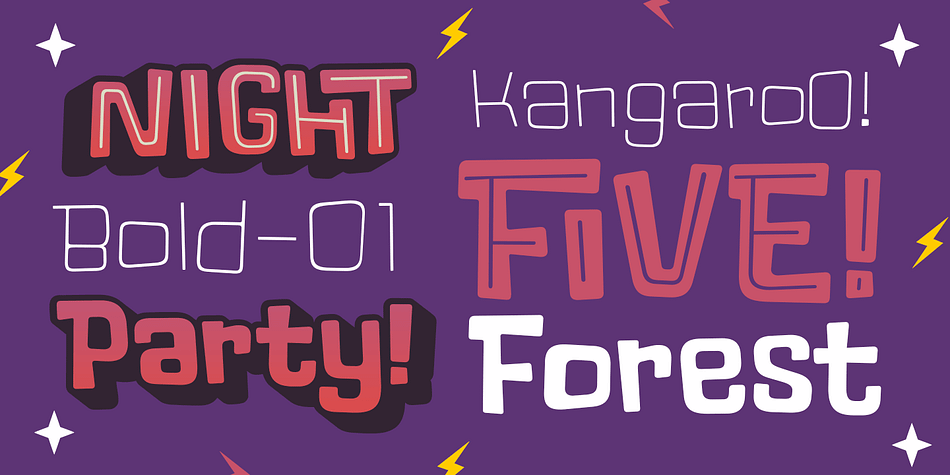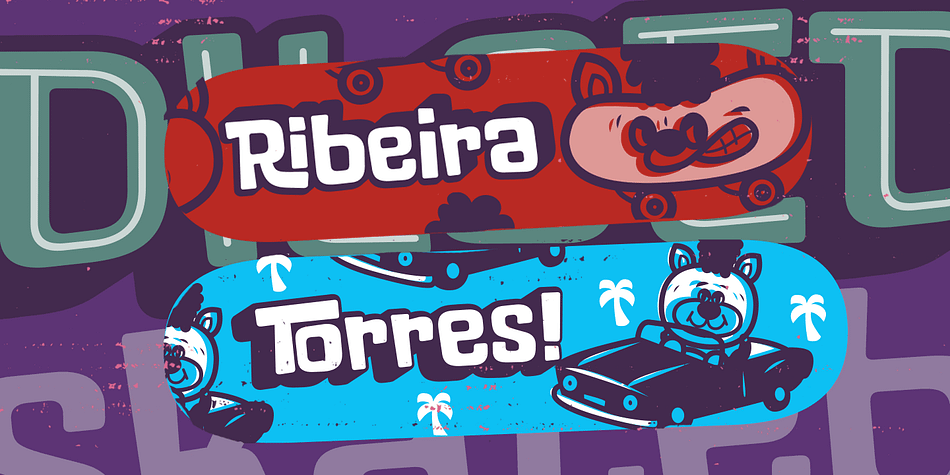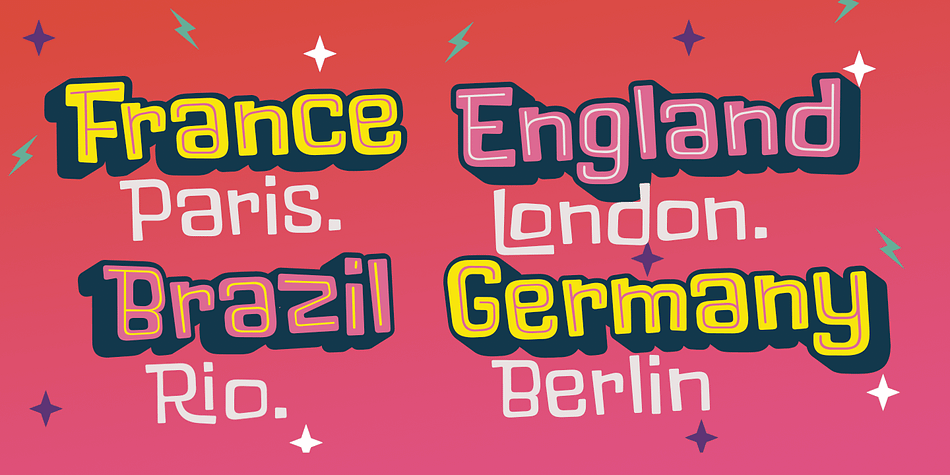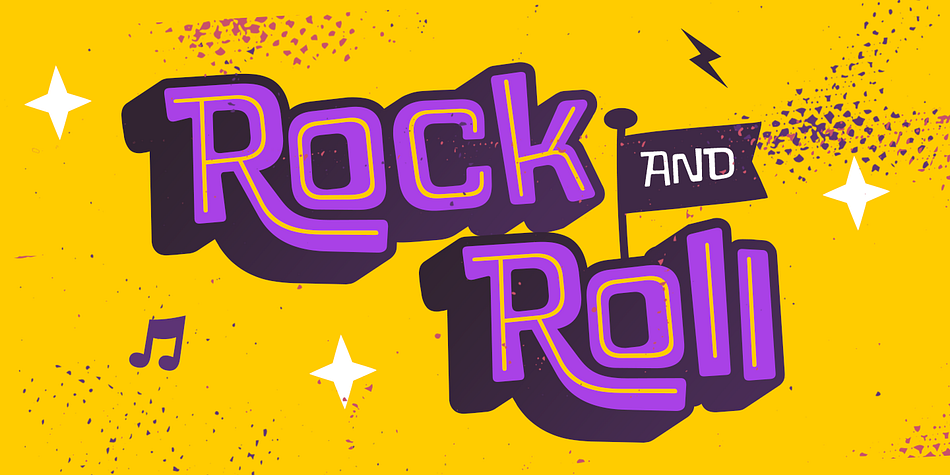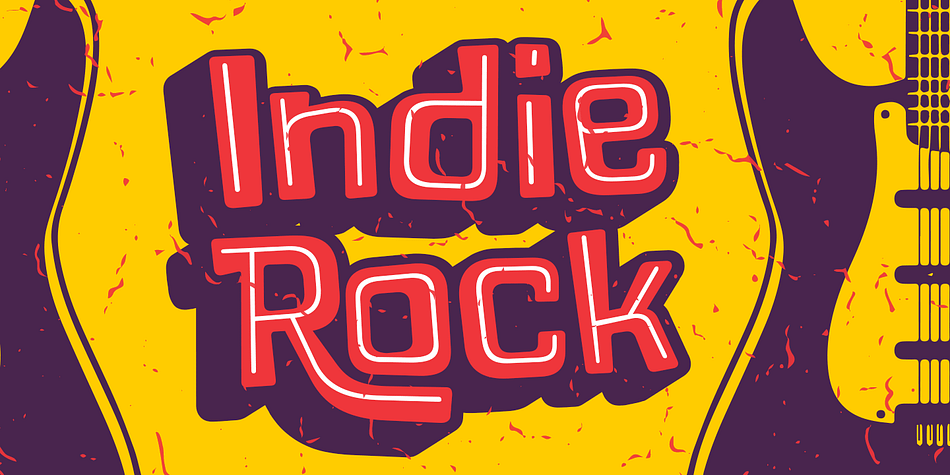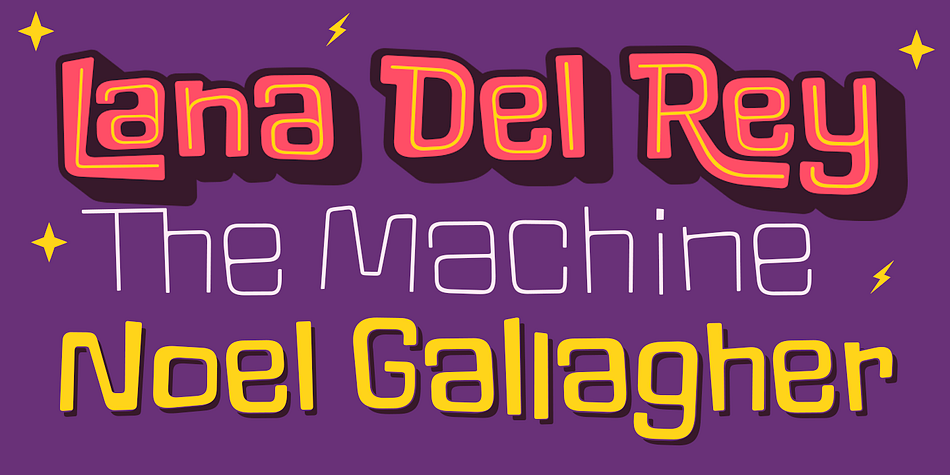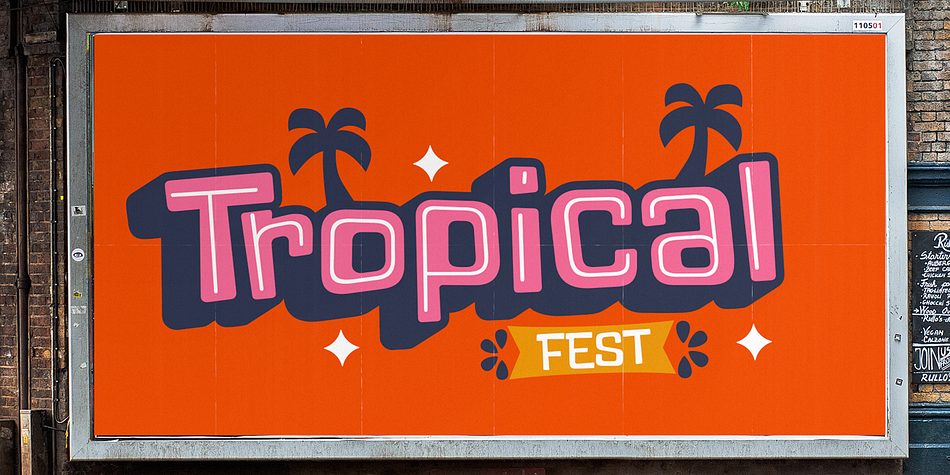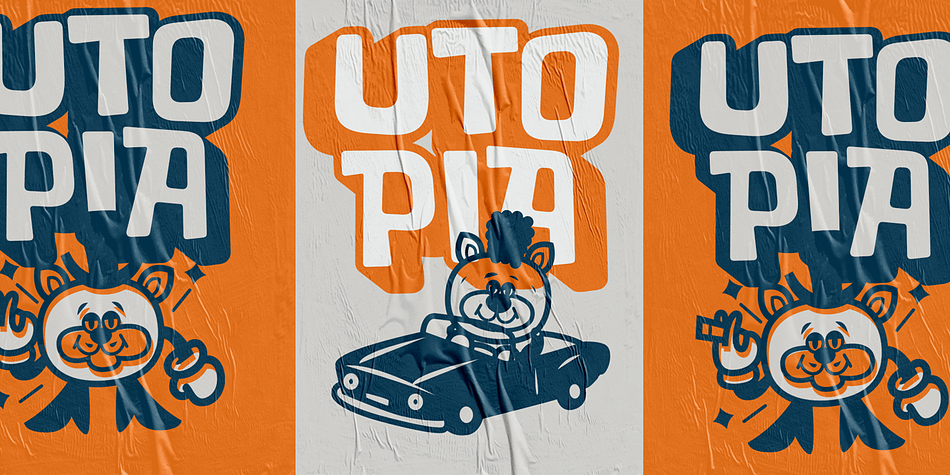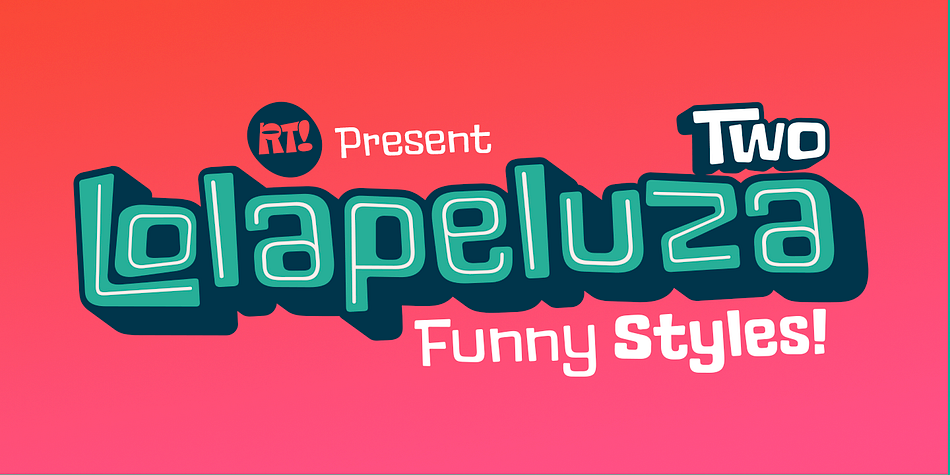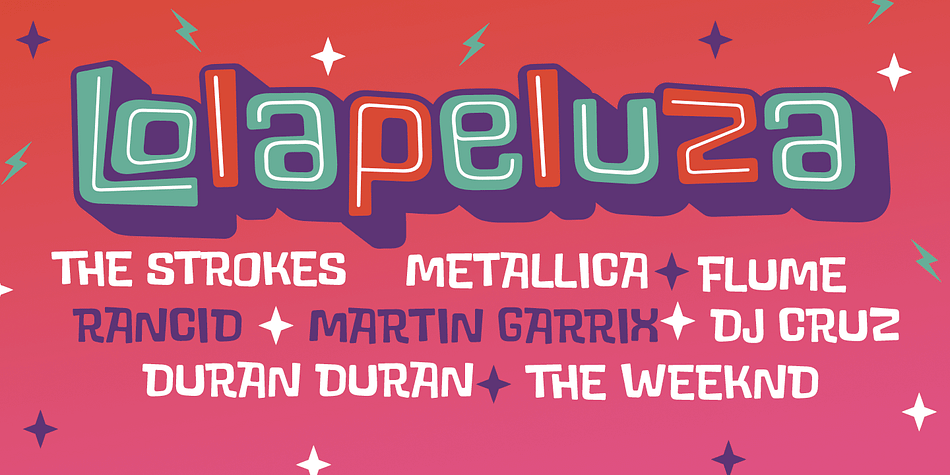
Designed by Rodrigo Salas and Héctor Barroso, Lolapeluza Two is a hand display and dingbat font family. This typeface has seventeen styles and was published by Rodrigo Typo.
Inspired by the “Lollapalooza” logo.
The intention was to design a cheerful, entertaining typography. Lolapeluza works perfectly for designs for children and young people. 17 variants are also included from Thin to the Black, Symbols and alternatives!